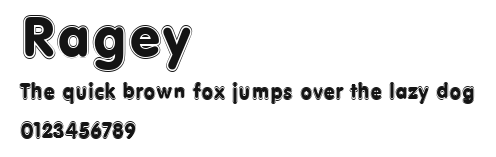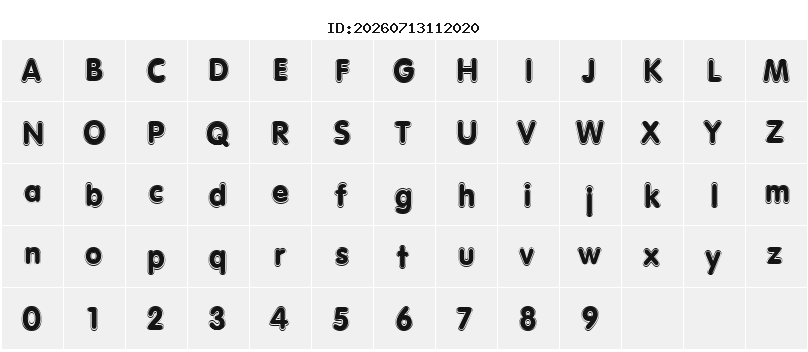
• Font Name: Ragey
• Full Font Name: Ragey
About Ragey.ttf
Ragey.ttf is a modern, elegant sans-serif font designed for ultimate readability and visual harmony. Perfect for branding, headlines, web design, and print materials.